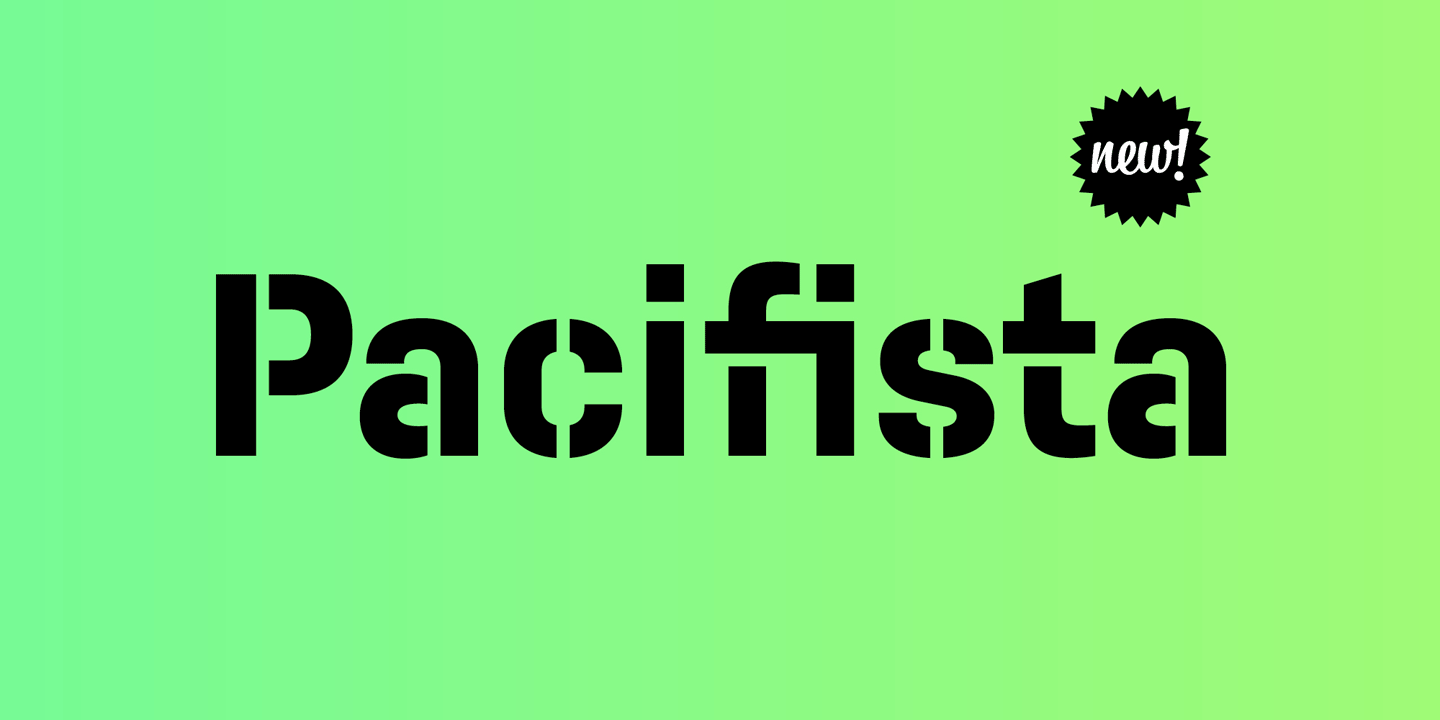
Pacifista Font is perfect for peace organization branding, mindfulness retreat materials, environmental activism campaigns, humanitarian nonprofit communications, meditation center signage, wellness sanctuary designs, conflict resolution presentations, and social justice movement posters.
This font is exciting because it radiates tranquil strength and compassionate determination with gentle yet purposeful letterforms that embody the power of peaceful resistance and positive change. The Pacifista Font captures the essence of non-violent activism and spiritual wisdom, transforming ordinary text into peaceful yet powerful calls for justice, understanding, and harmonious coexistence in our interconnected world.
The Pacifista Font family includes peaceful variations such as Regular, Bold, Light, Zen, Italic, Harmony, Condensed, and Extended versions, providing peace-focused designers with comprehensive tools to create typography that promotes understanding, compassion, and positive social transformation through non-violent communication and action.
Promote peaceful change with Pacifista Font Free Download that brings compassionate strength to every social justice design project. This mindfully crafted typeface combines peaceful aesthetics with practical functionality, making it perfect for nonprofits, spiritual organizations, and activists working toward positive social change through non-violent means. The font's serene character design ensures your message feels both calming and empowering while maintaining excellent readability across all applications. Whether you're developing peace organization branding, creating awareness campaigns, or designing materials that promote social harmony, Pacifista Font delivers the peaceful typography that resonates with audiences seeking positive change and social justice. Its versatile design works beautifully across digital and print media while preserving the tranquil determination that makes peace-focused communications feel genuinely inspiring and capable of fostering the kind of understanding and compassion that creates lasting positive change in communities and the world.